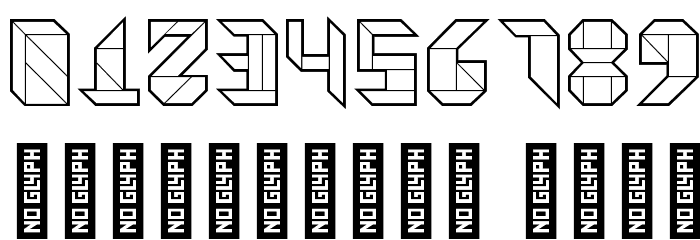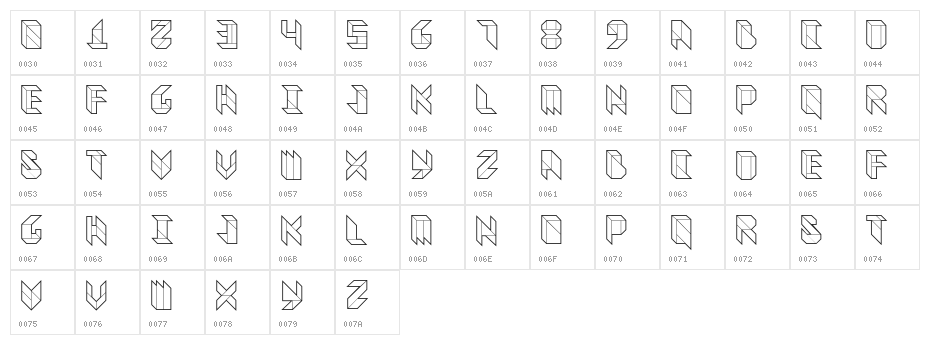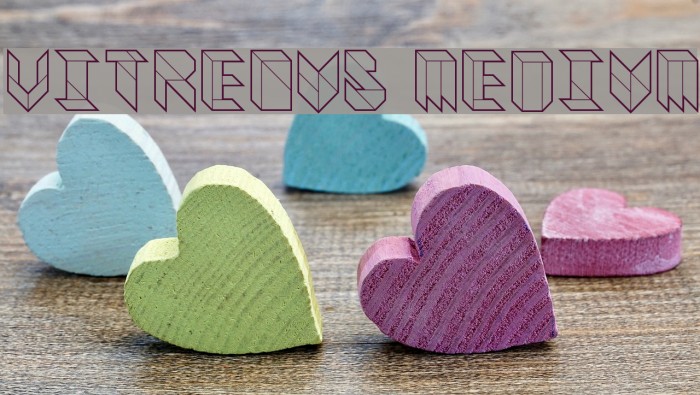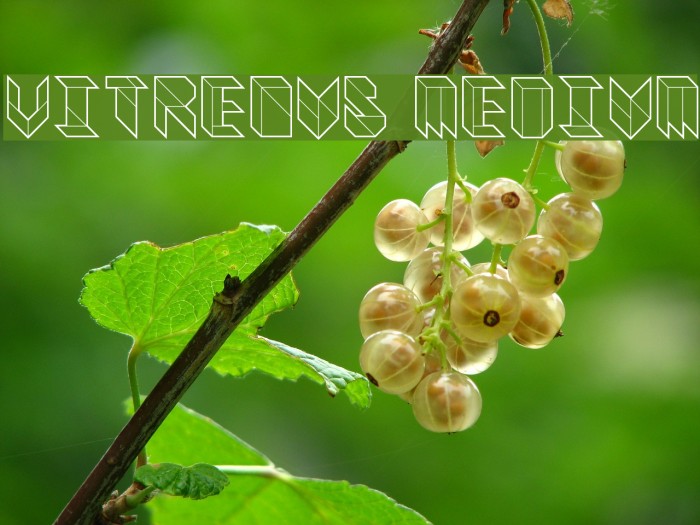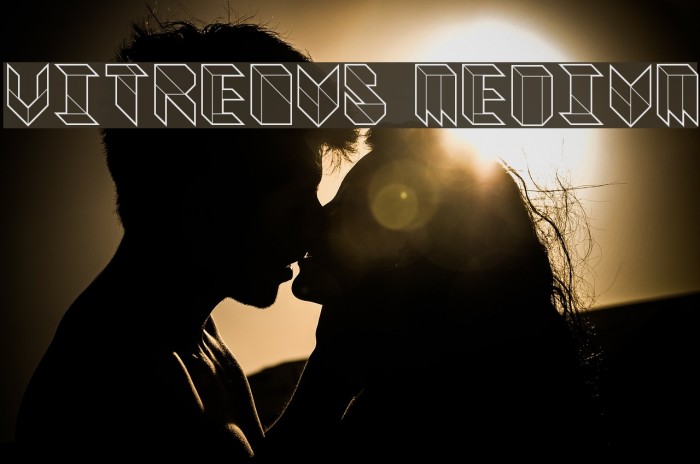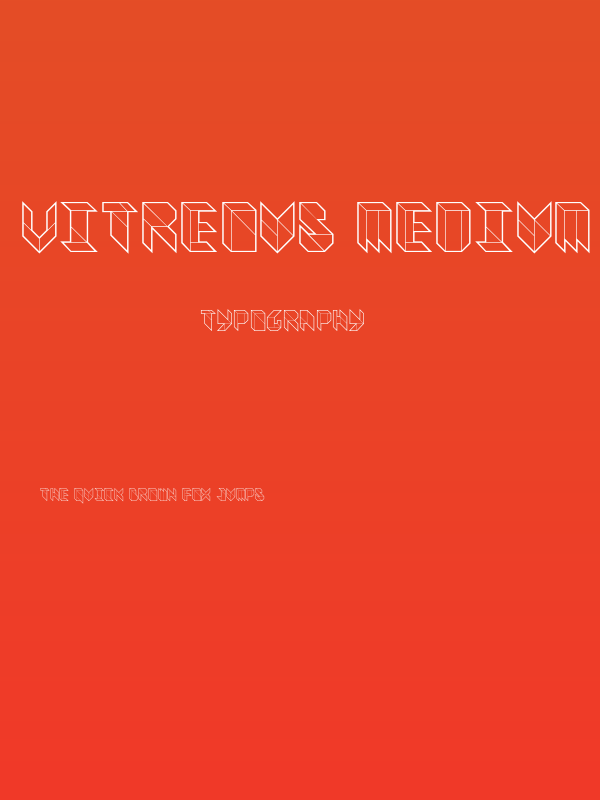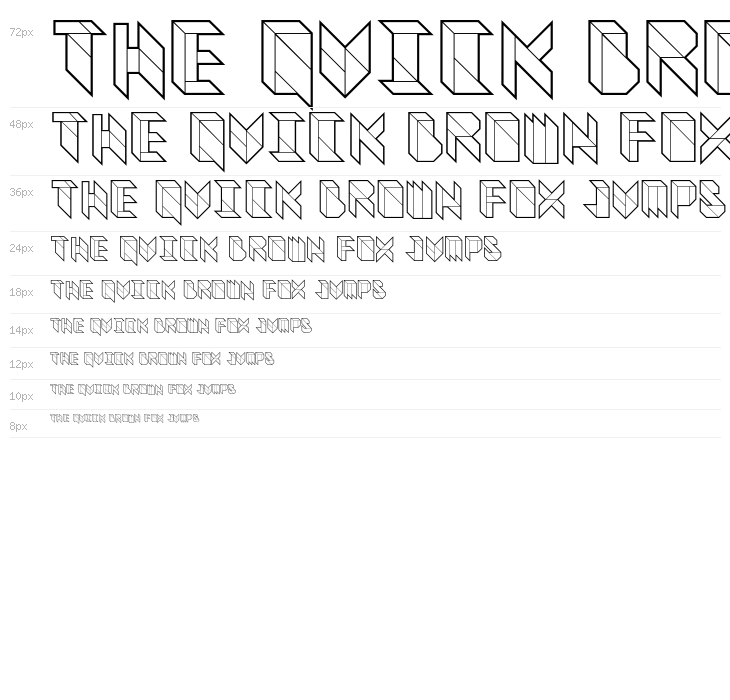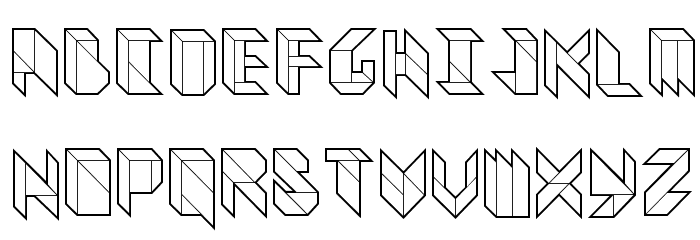
Vitreous Medium Font
Vitreous Medium Description
This font features a geometric and angular design, characterized by sharp edges and a three-dimensional appearance. Each letter is constructed with bold lines and distinct angles, creating a futuristic and mechanical feel. The uppercase and lowercase letters maintain a consistent style, with a unique interplay of lines that form each character. The numbers follow the same design principles, ensuring uniformity across all glyphs. This font lacks traditional curves, opting instead for a more rigid and structured look, which makes it stand out as a display typeface.
Proposed ProjectsIdeal for sci-fi themed projects, tech branding, video game titles, and modern posters.